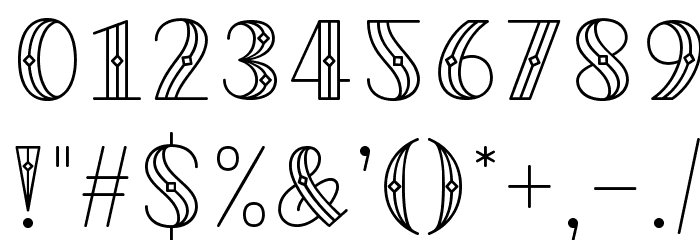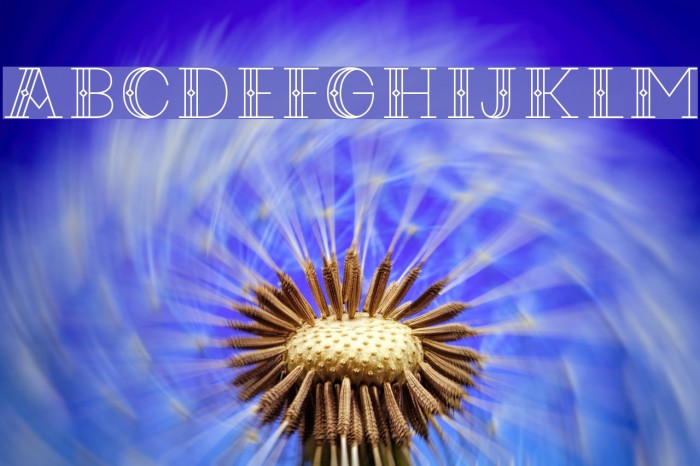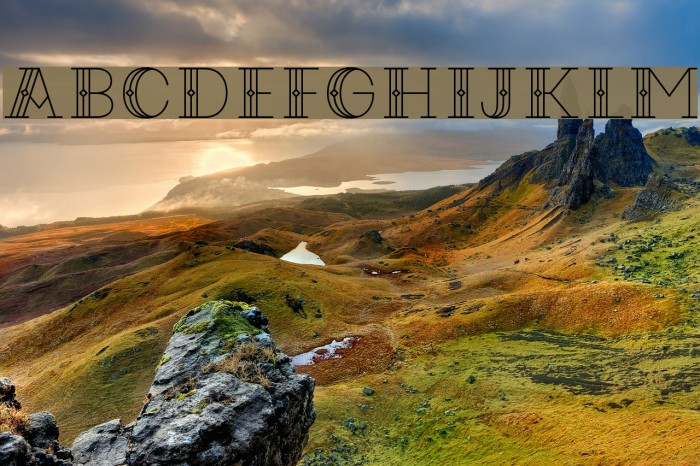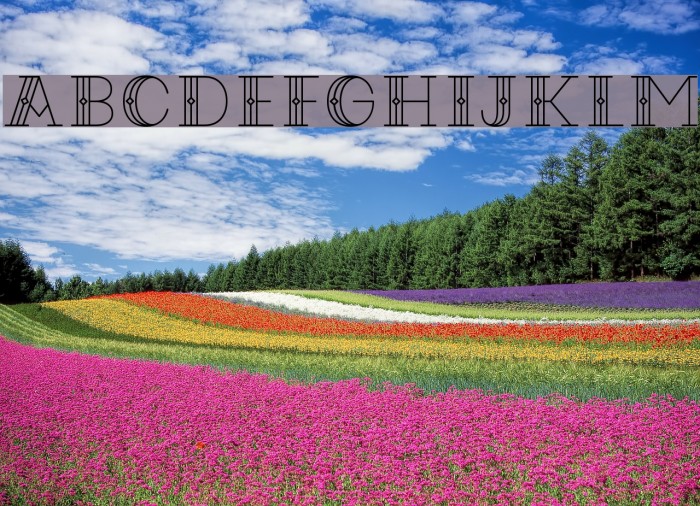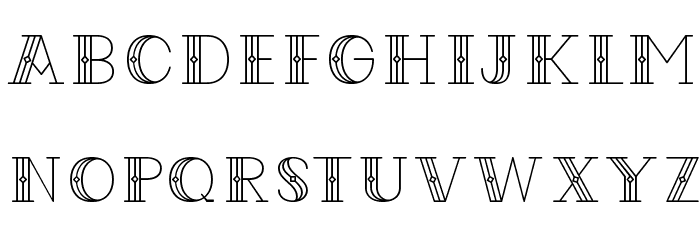
CodianOctoberNine Font
CodianOctoberNine Description
This font features a unique and decorative style with an intricate line pattern within each character. The uppercase and lowercase letters maintain a consistent design, characterized by vertical lines that create a striped effect. The numerals and special characters follow the same aesthetic, adding a touch of elegance and sophistication. The font's design is reminiscent of art deco influences, making it suitable for projects that require a vintage or classic feel. The overall appearance is both bold and stylish, with a medium contrast in stroke thickness that enhances its decorative nature.
| Proposed Projects | Ideal for branding, posters, invitations, and any design project that seeks a vintage or classic aesthetic. |